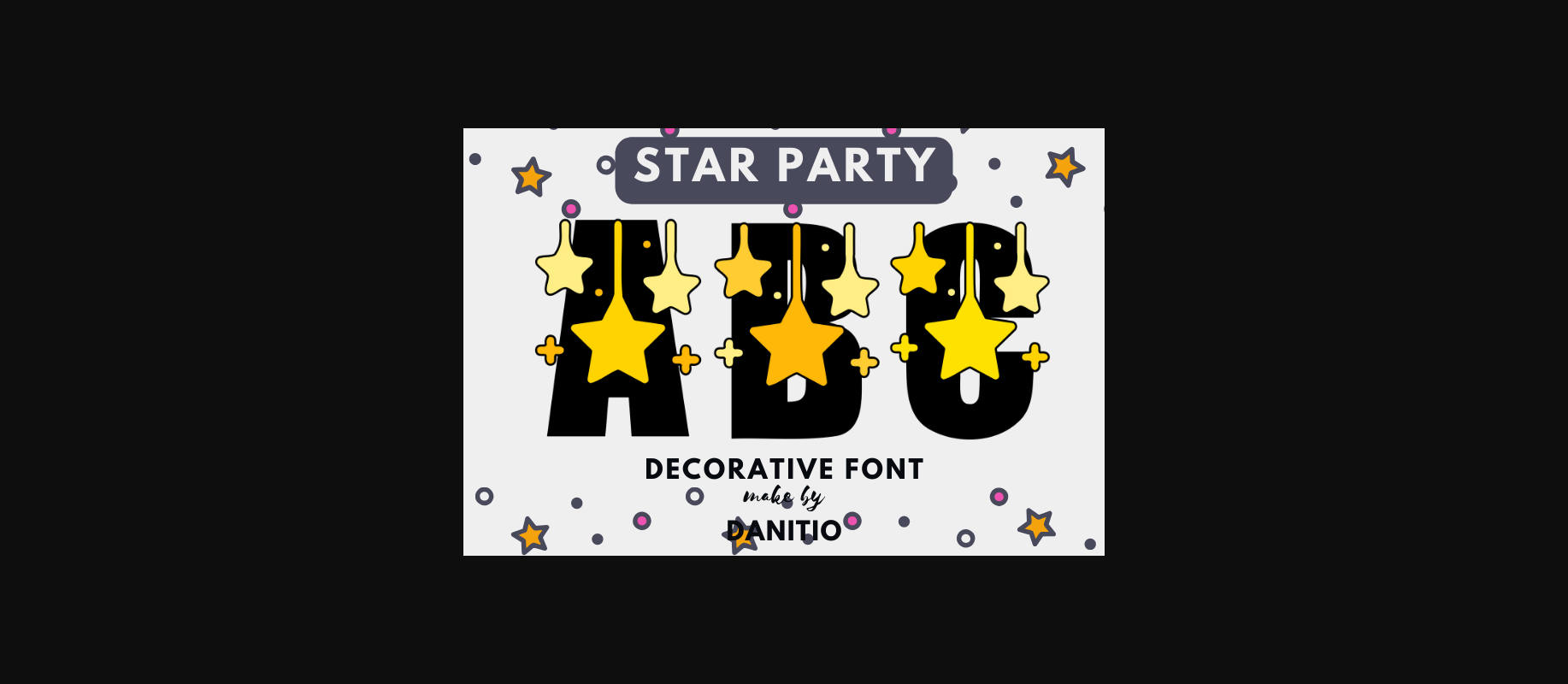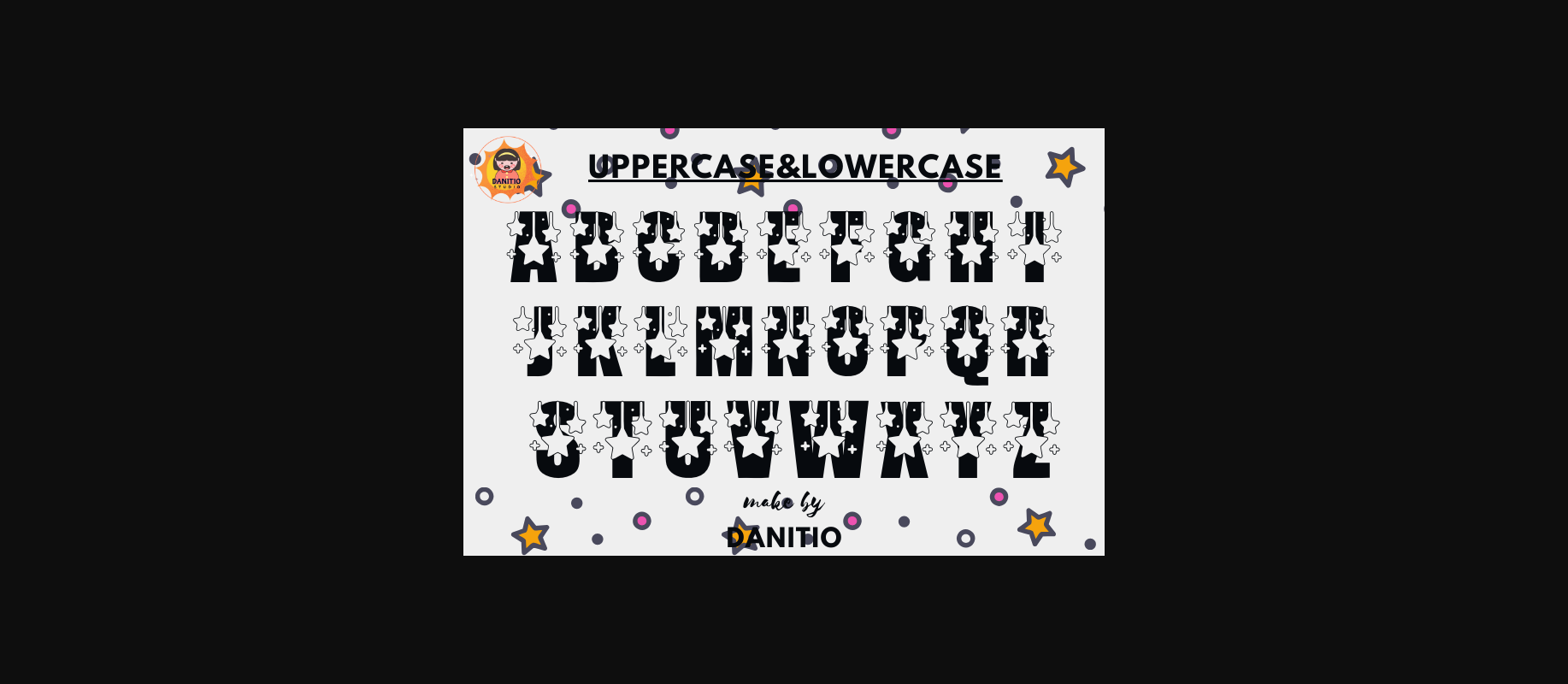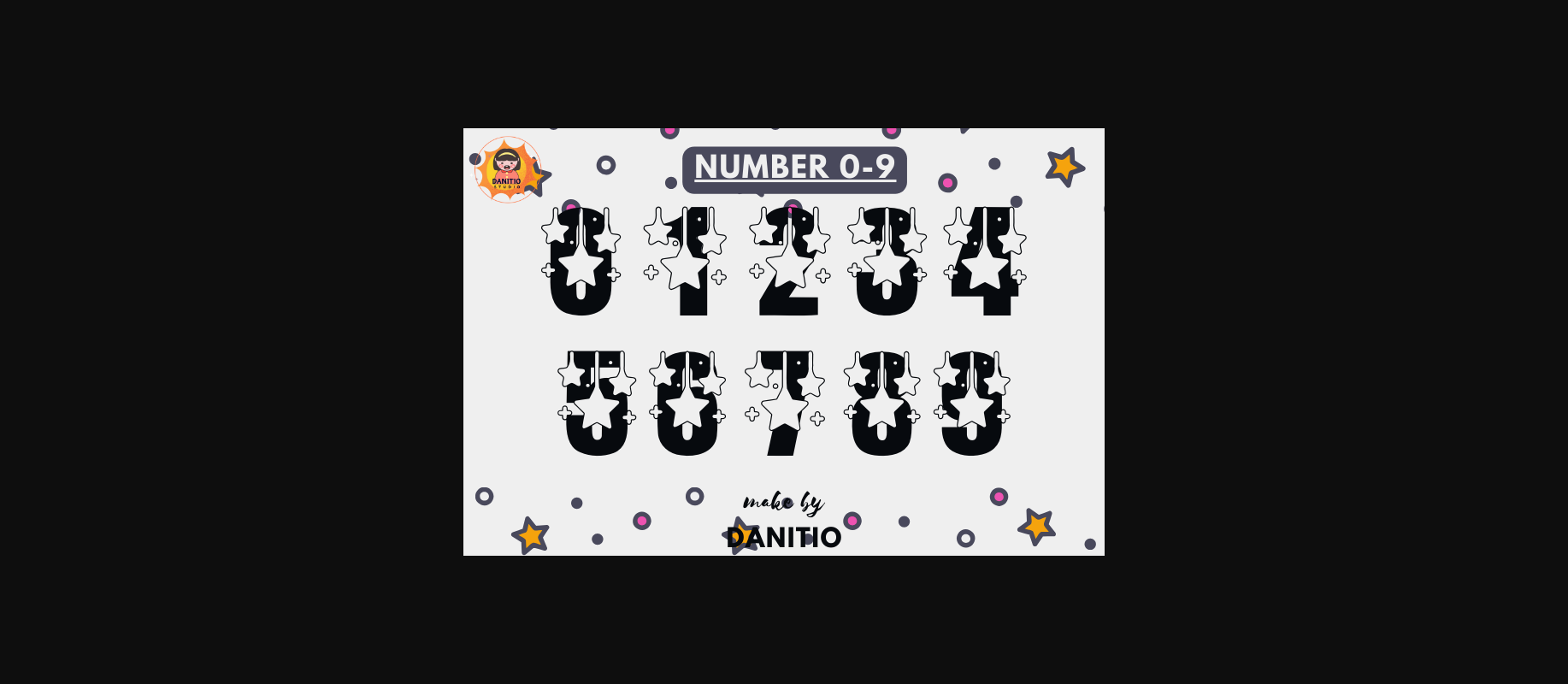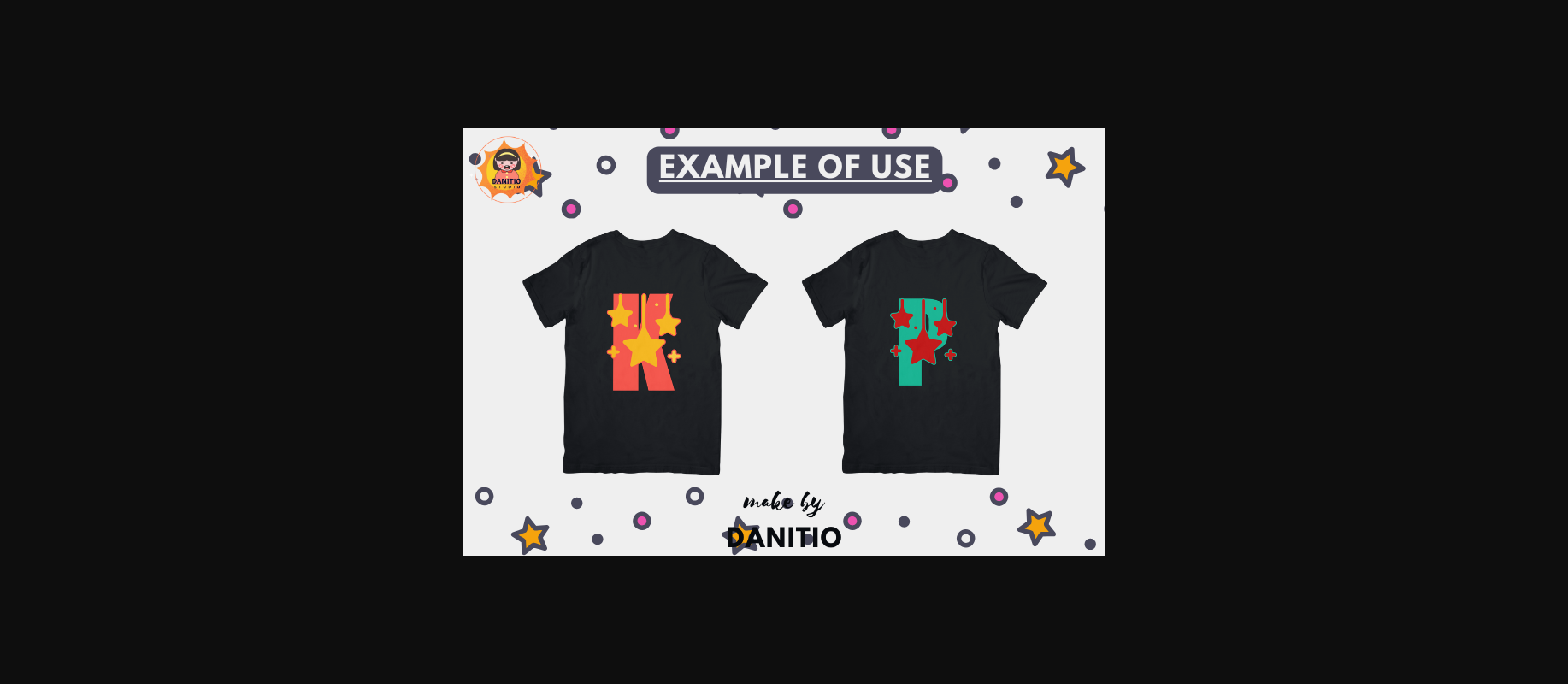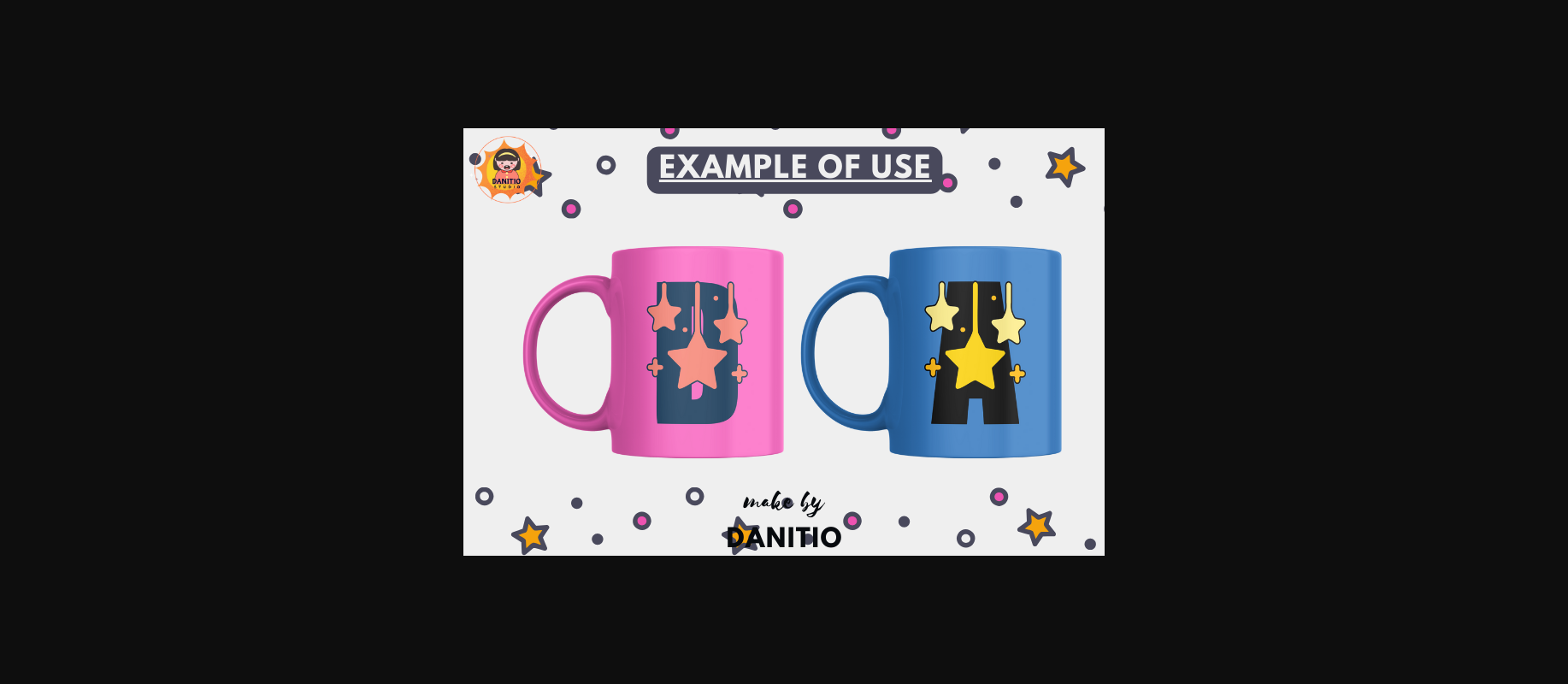
Star Party is a decorative font. which combines letters decorated with cute hearts and stars, making it strange and cool at the same time. This style is to give a touch of cuteness to every design. Perfect for birthday cards, t-shirts, mugs, tote bags, and other products. that you deem appropriate Hope you enjoy my fonts.